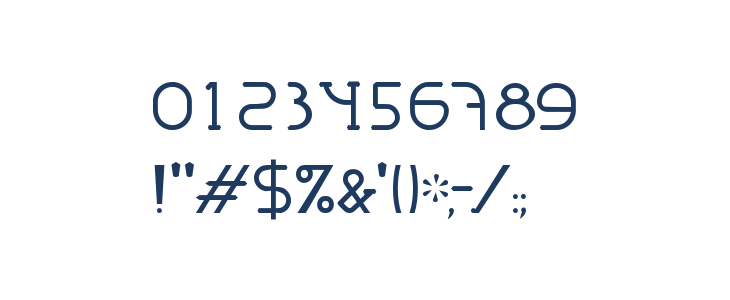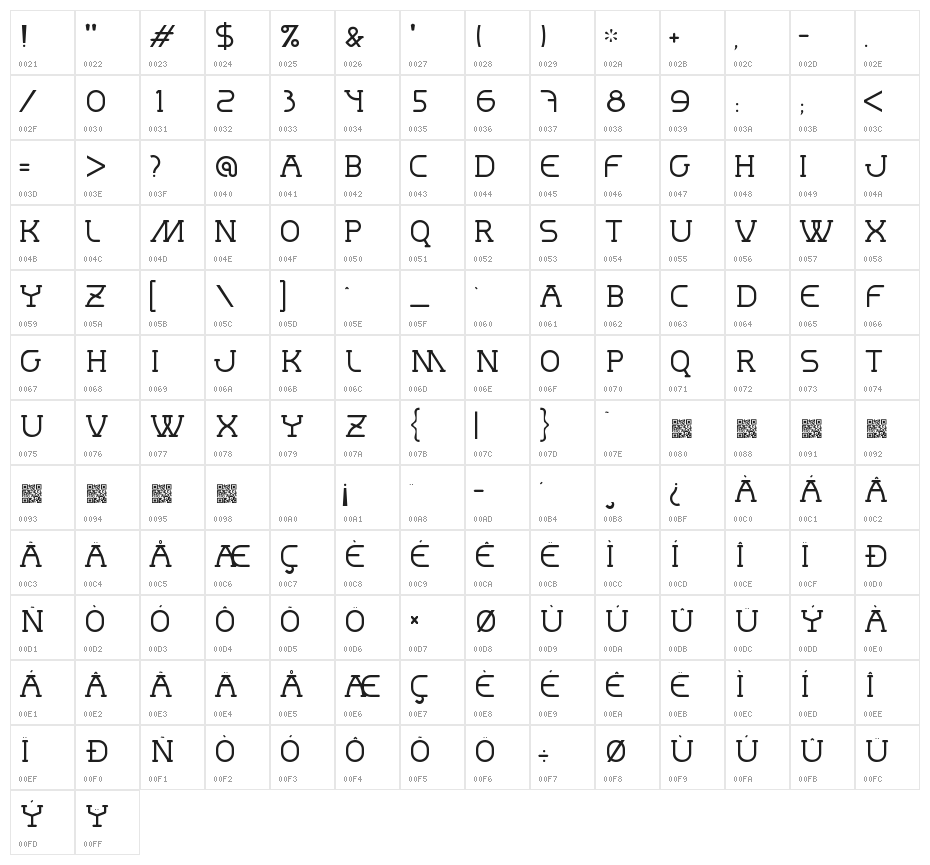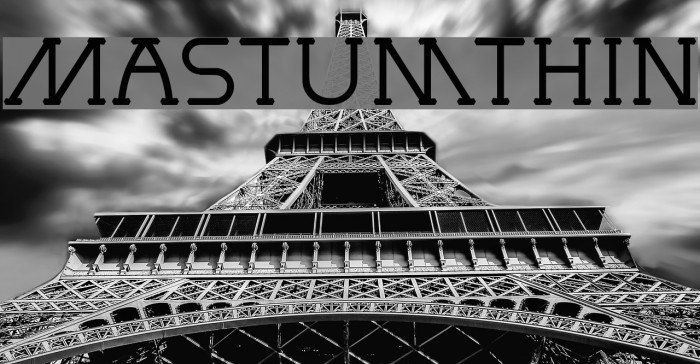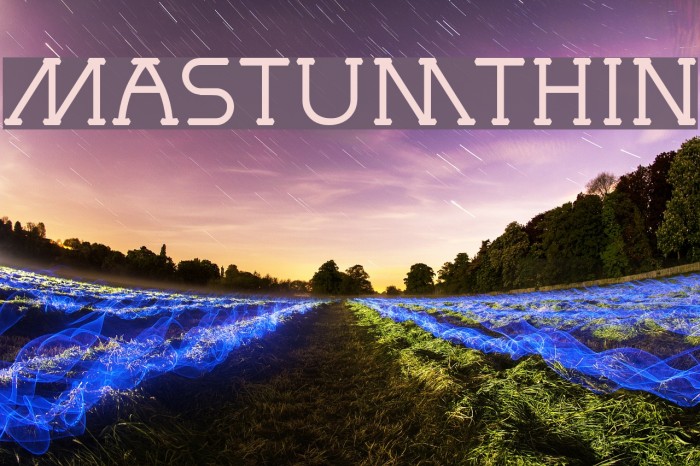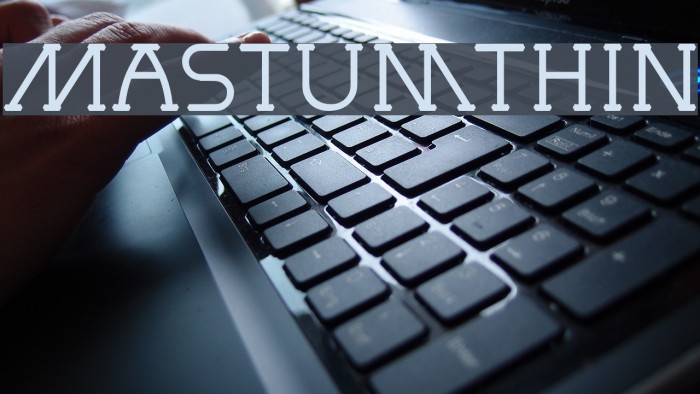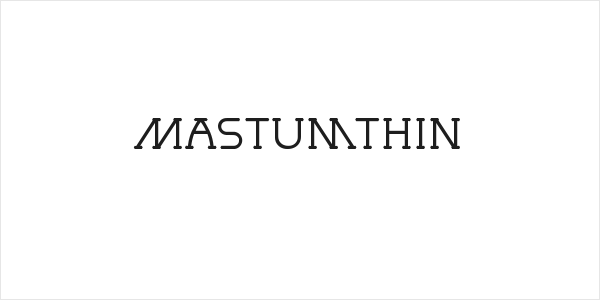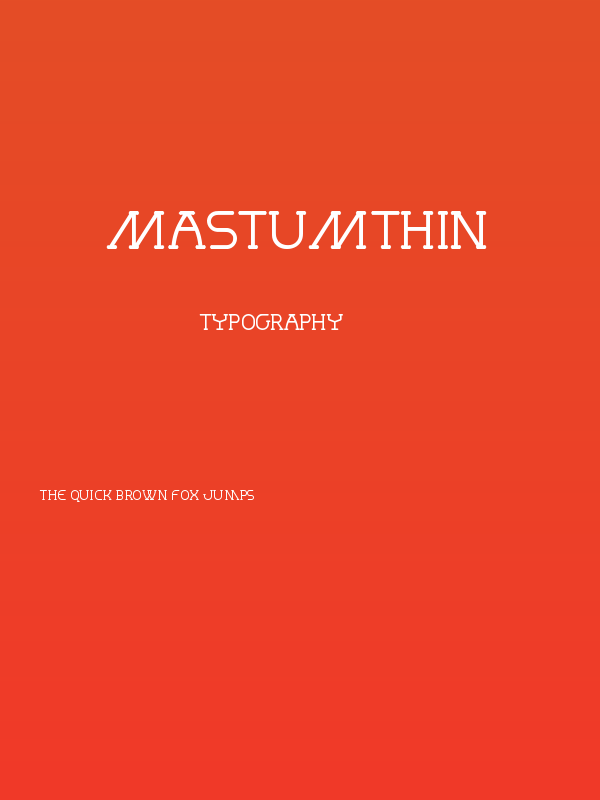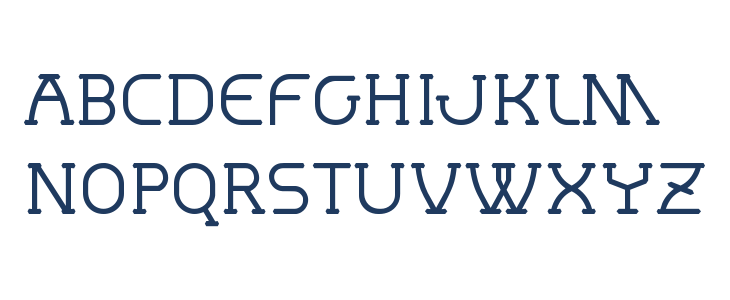
MastumThin Font
MastumThin Description
This font features a modern and sleek design with a geometric structure. The characters are crafted with a consistent stroke width, giving it a uniform appearance. The uppercase letters exhibit a unique blend of curves and straight lines, creating a distinctive look. The lowercase letters maintain the same geometric style, ensuring readability while adding a touch of elegance. The numerals are well-proportioned and align seamlessly with the overall design. Special characters are included, maintaining the font's cohesive aesthetic. This font is versatile, suitable for both digital and print media, offering a contemporary feel that can enhance various design projects.